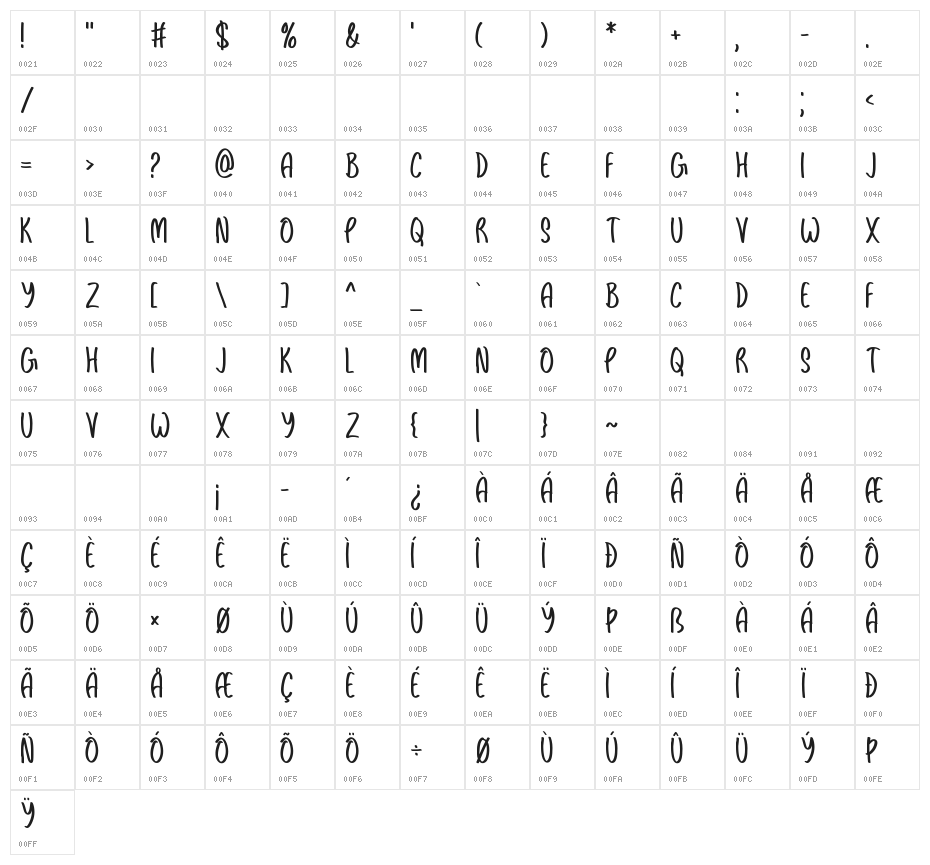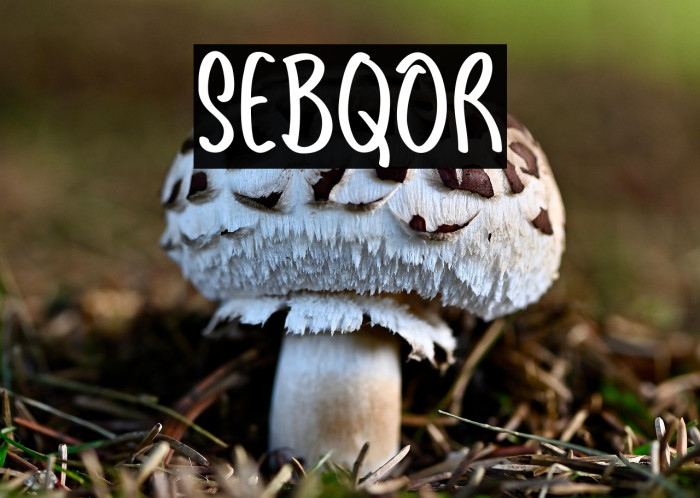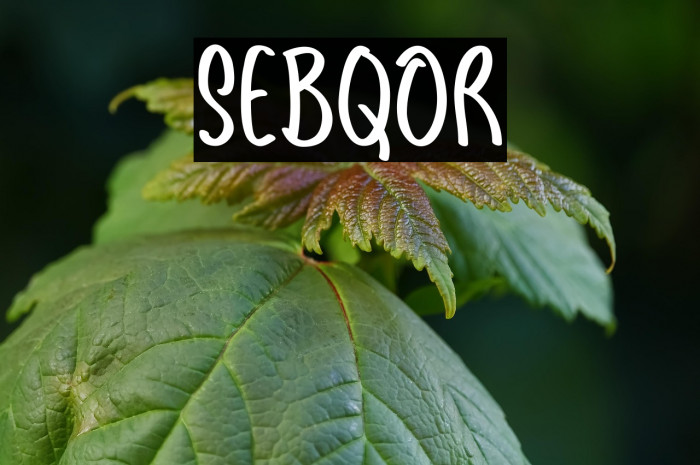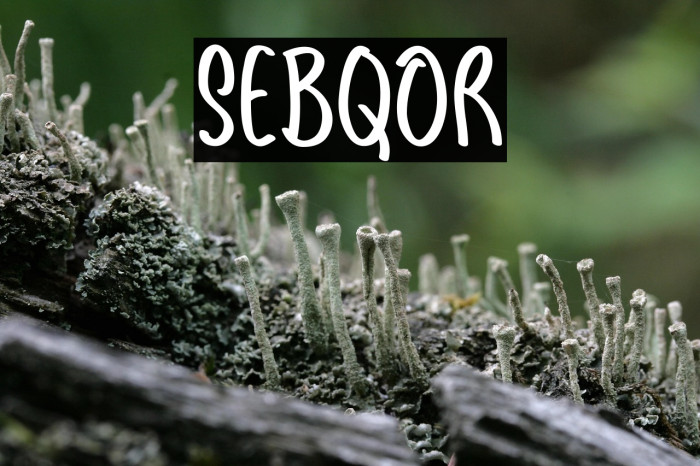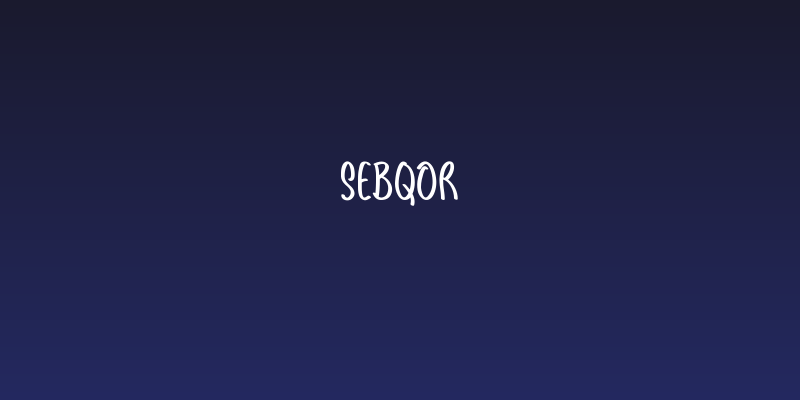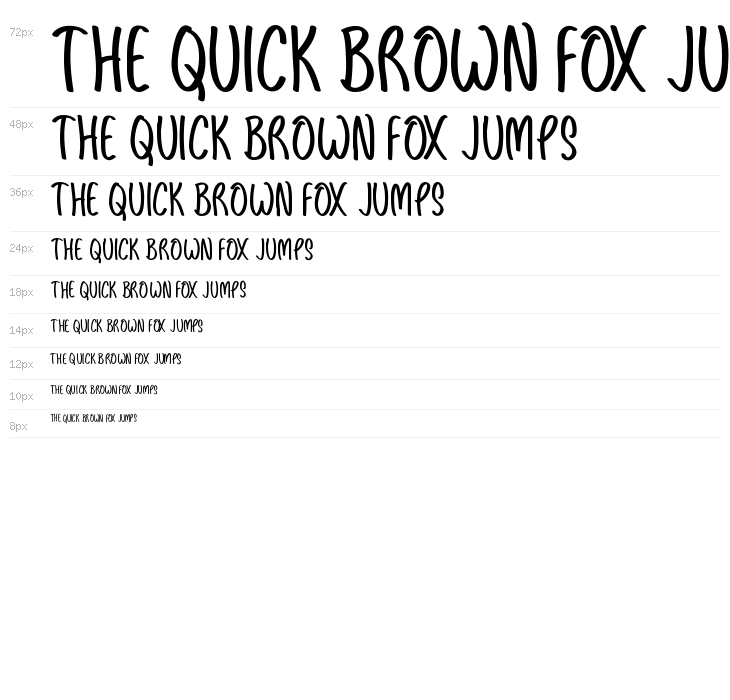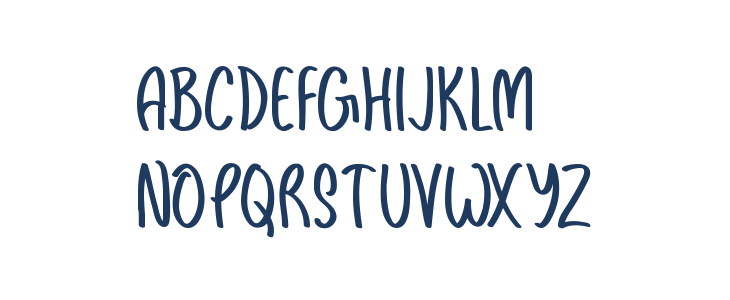
Sebqor Font
Sebqor Description
This font features a playful and casual handwritten style, characterized by its smooth curves and slightly irregular letterforms. The uppercase and lowercase letters maintain a consistent flow, giving it a friendly and approachable appearance. The strokes are moderately thick, providing a bold presence without being overwhelming. Special characters are integrated seamlessly, matching the overall aesthetic. The font's informal nature makes it suitable for projects that require a personal touch or a relaxed vibe.
| Overall Style | Casual |
| Use Case | Headlines, Logos, Informal Text |
| Proposed Projects | Ideal for greeting cards, invitations, personal branding, children's books, and social media graphics. |